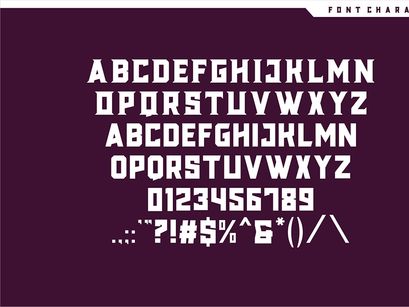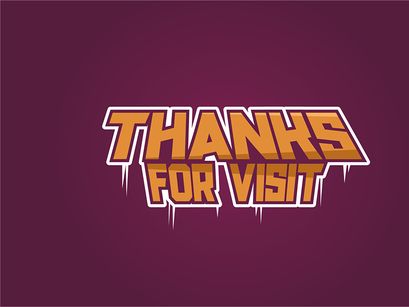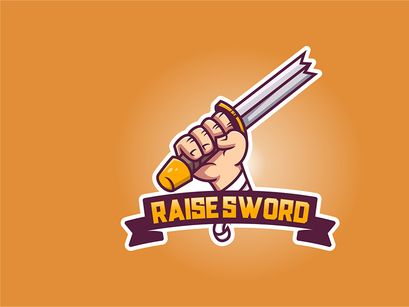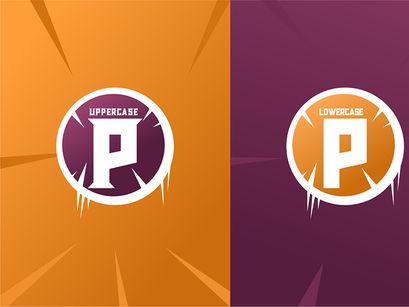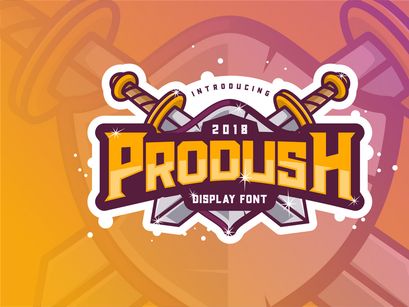
Prodush Free Display Font
Prodush Free
Prodush Free Display Font is a masculine style font designed with uppercase characters. As you can see in the previews, this font will be great for various design purposes. Hence, this font is perfect for logo, poster, label product, or whatever. This logo is available in OTF and TTF formats.